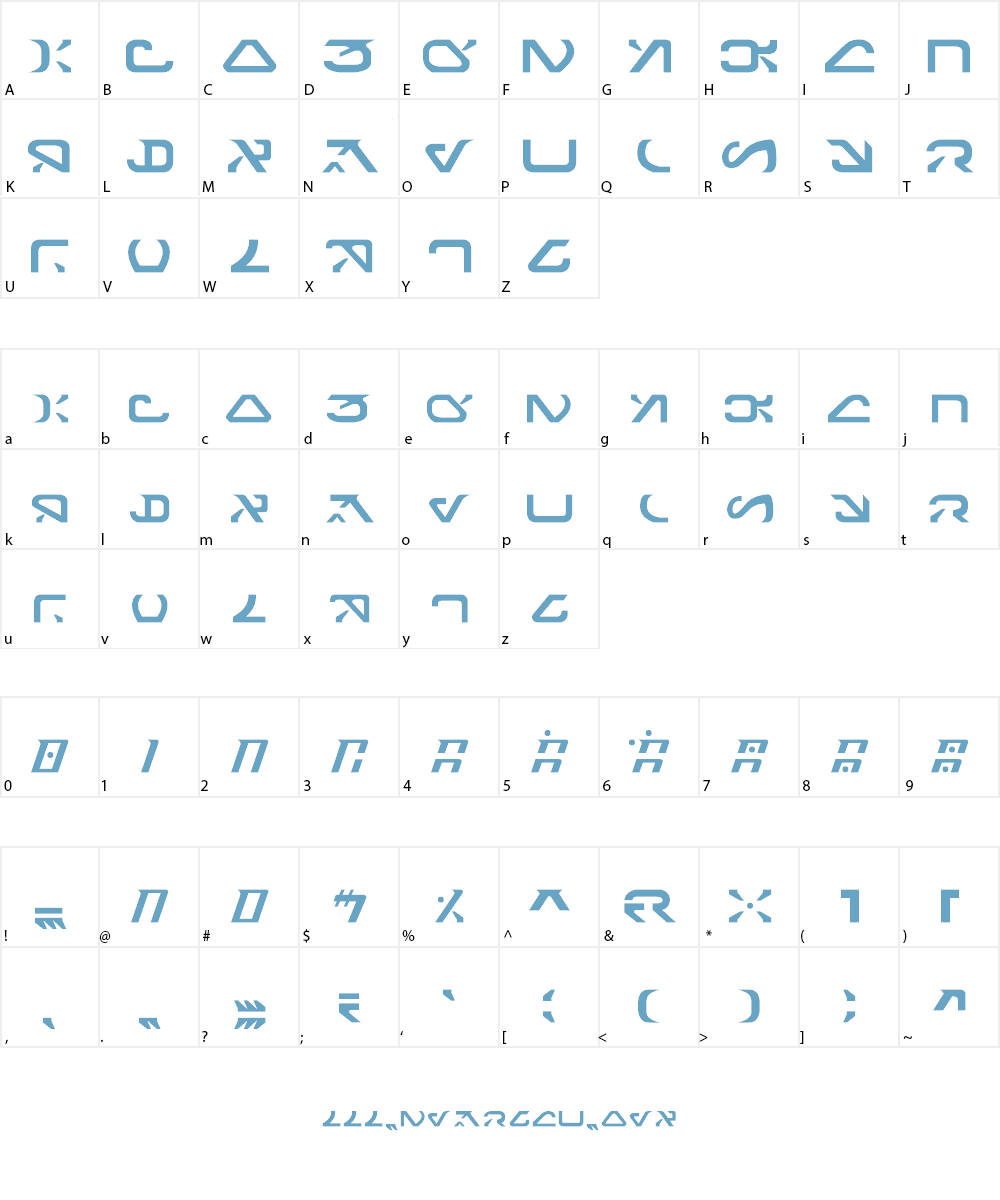
Before there was Aurebesh, there was Dark Katarn! (Ok. Sorry. I couldn't resist that.) This font re-creates a forgotten Star Wars alphabet that appeared in the classic LucasArts games X-Wing, TIE-Fighter, and Dark Forces. Those who've played these games will most likely remember it from Dark Forces, where it appeared on crates and keys used for combination locks